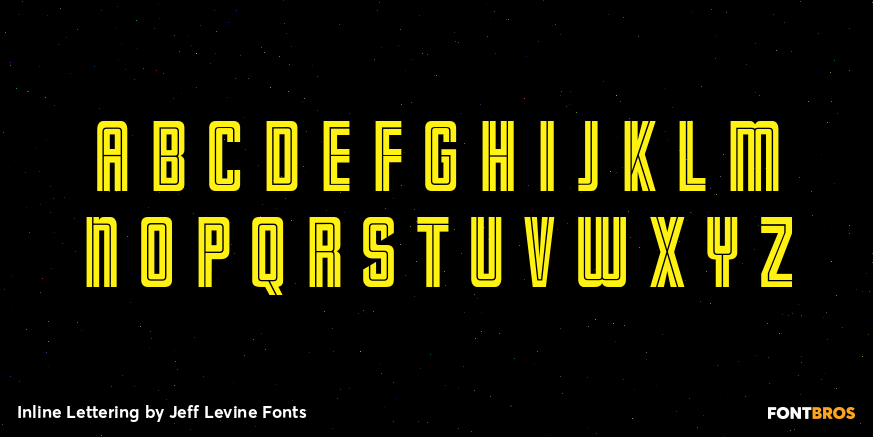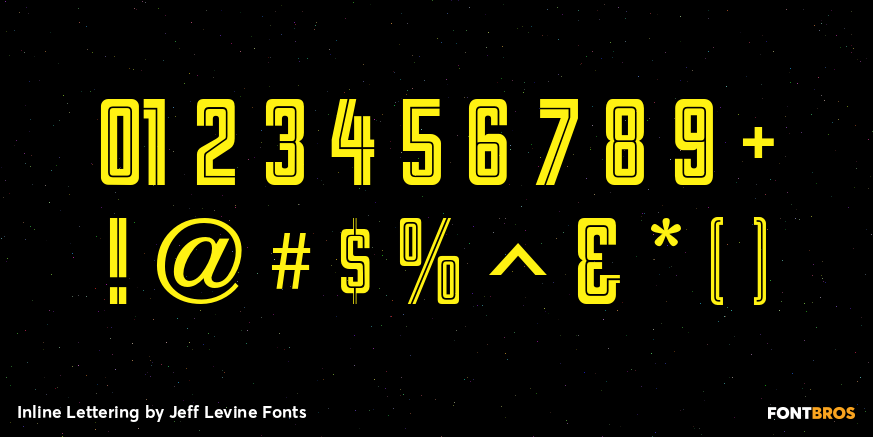
Inline Lettering
Inline Lettering JNL was directly inspired by the opening title of a classic 1940s horror film, "The Invisible Man's Revenge".
Inline Lettering by Jeff Levine Fonts